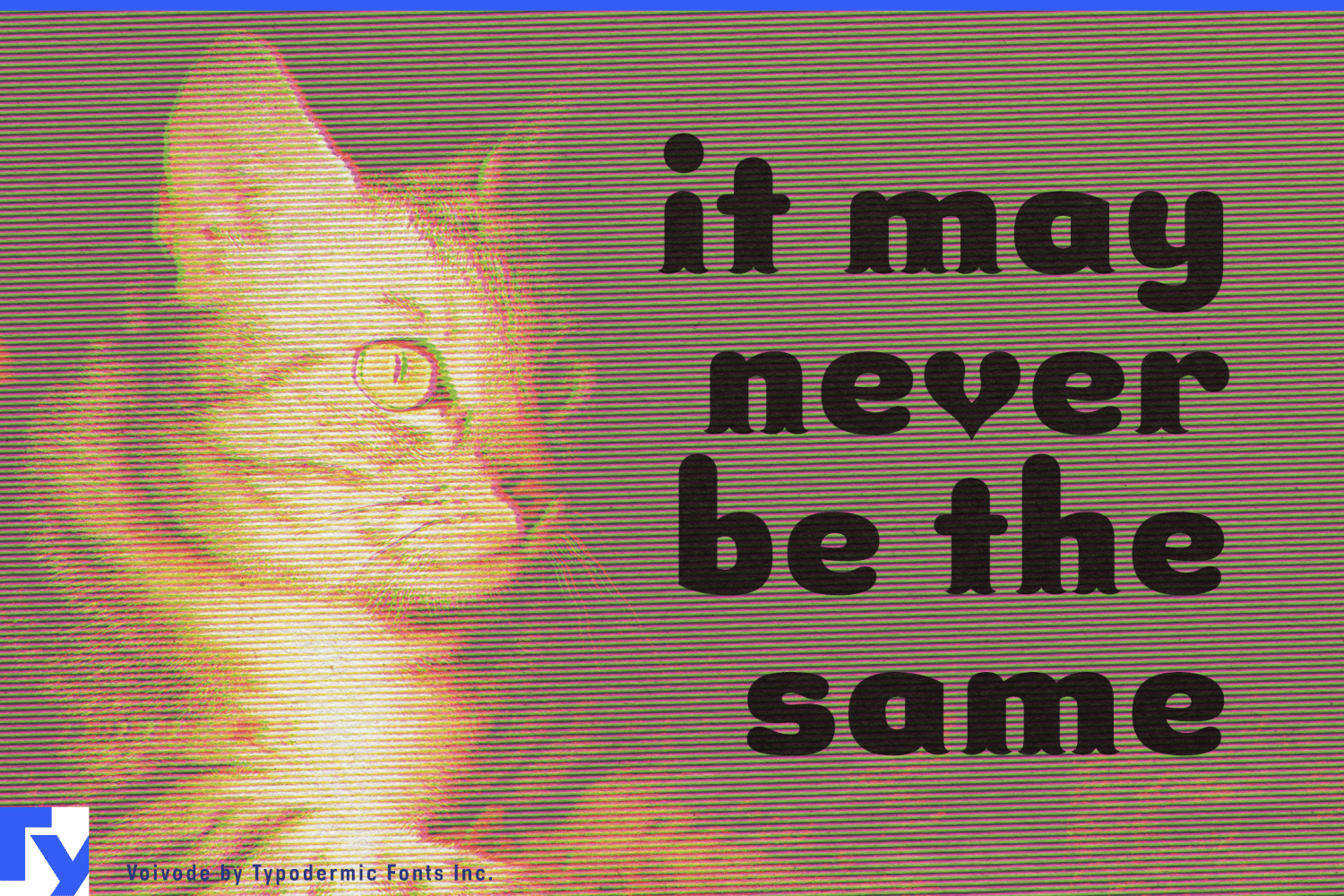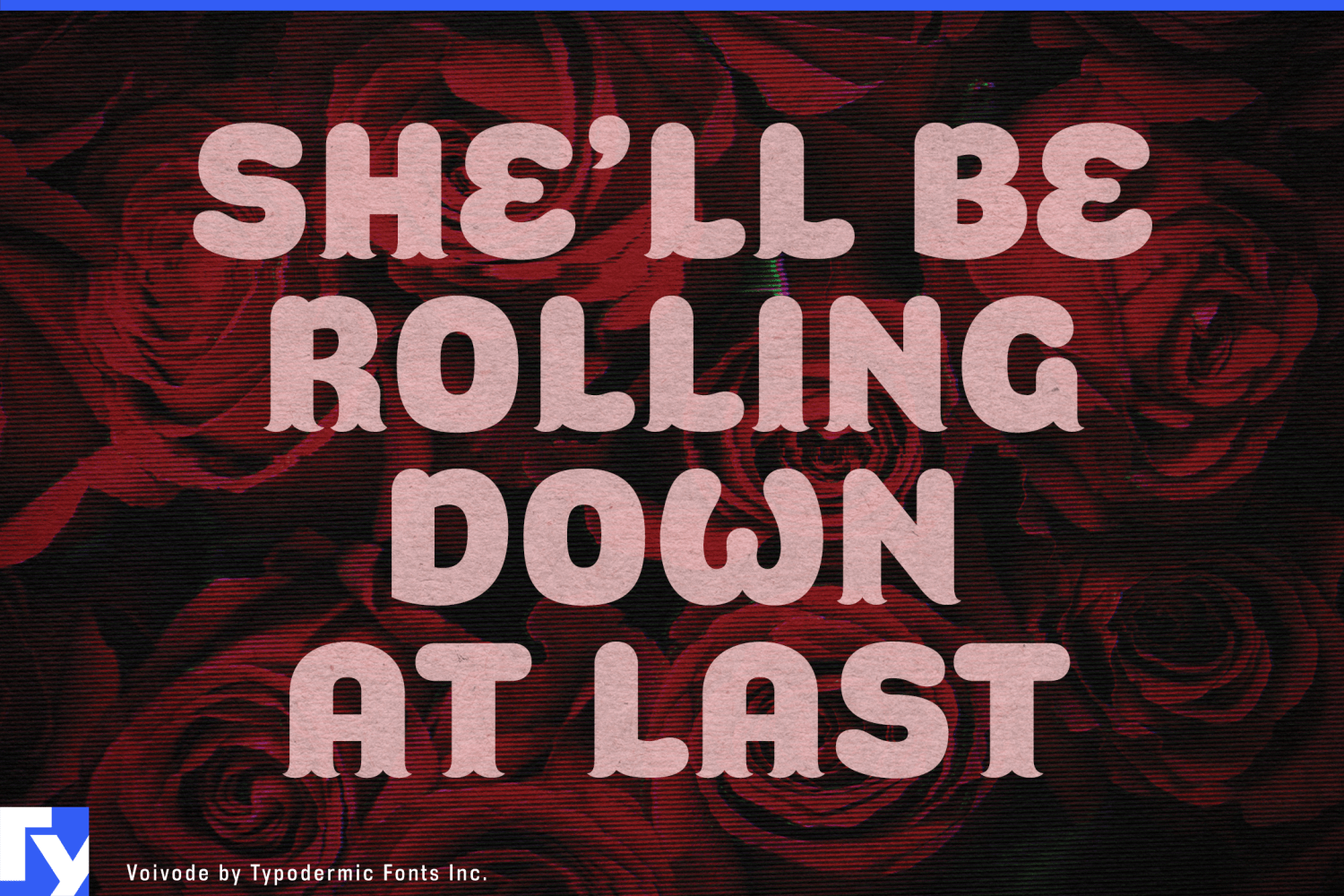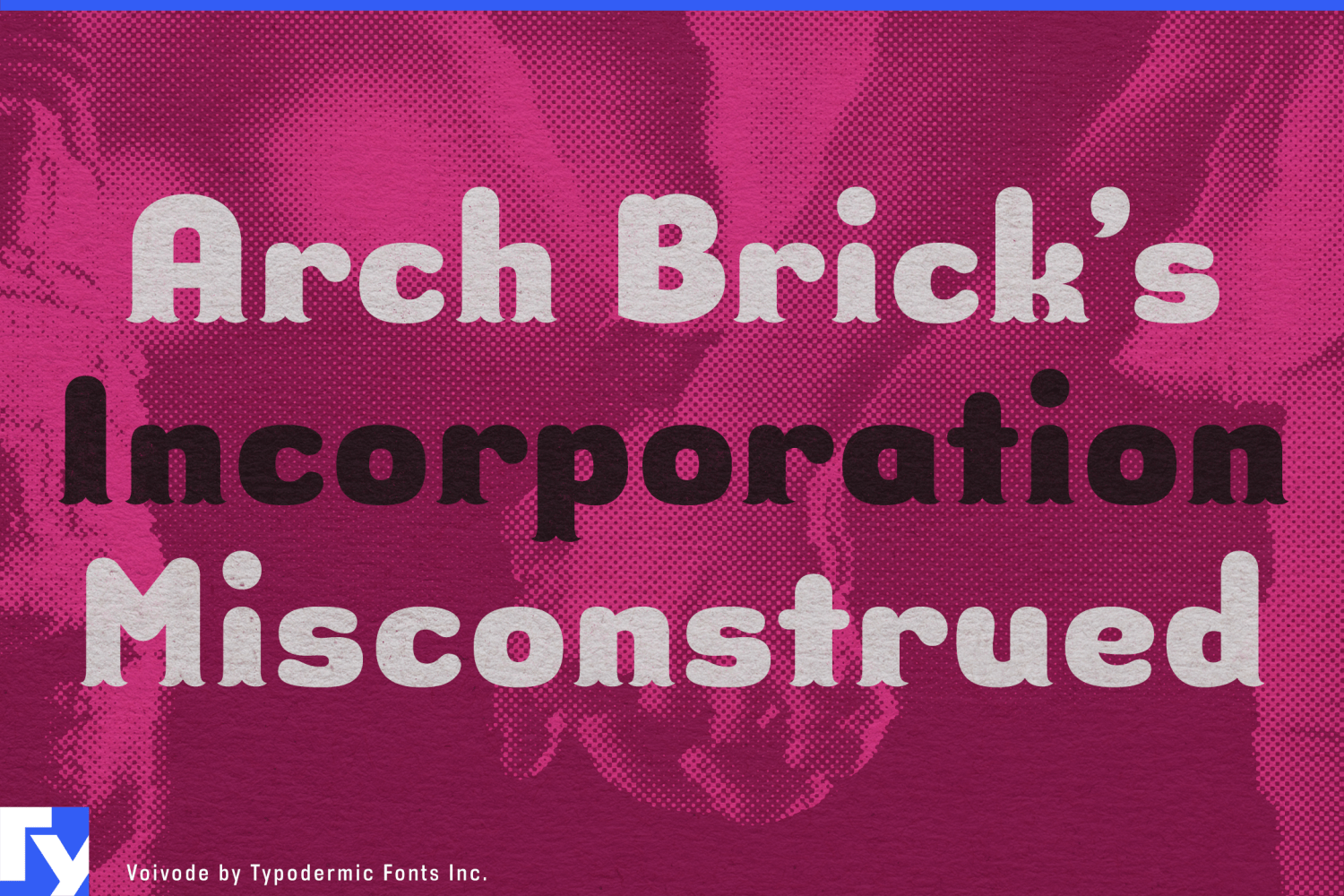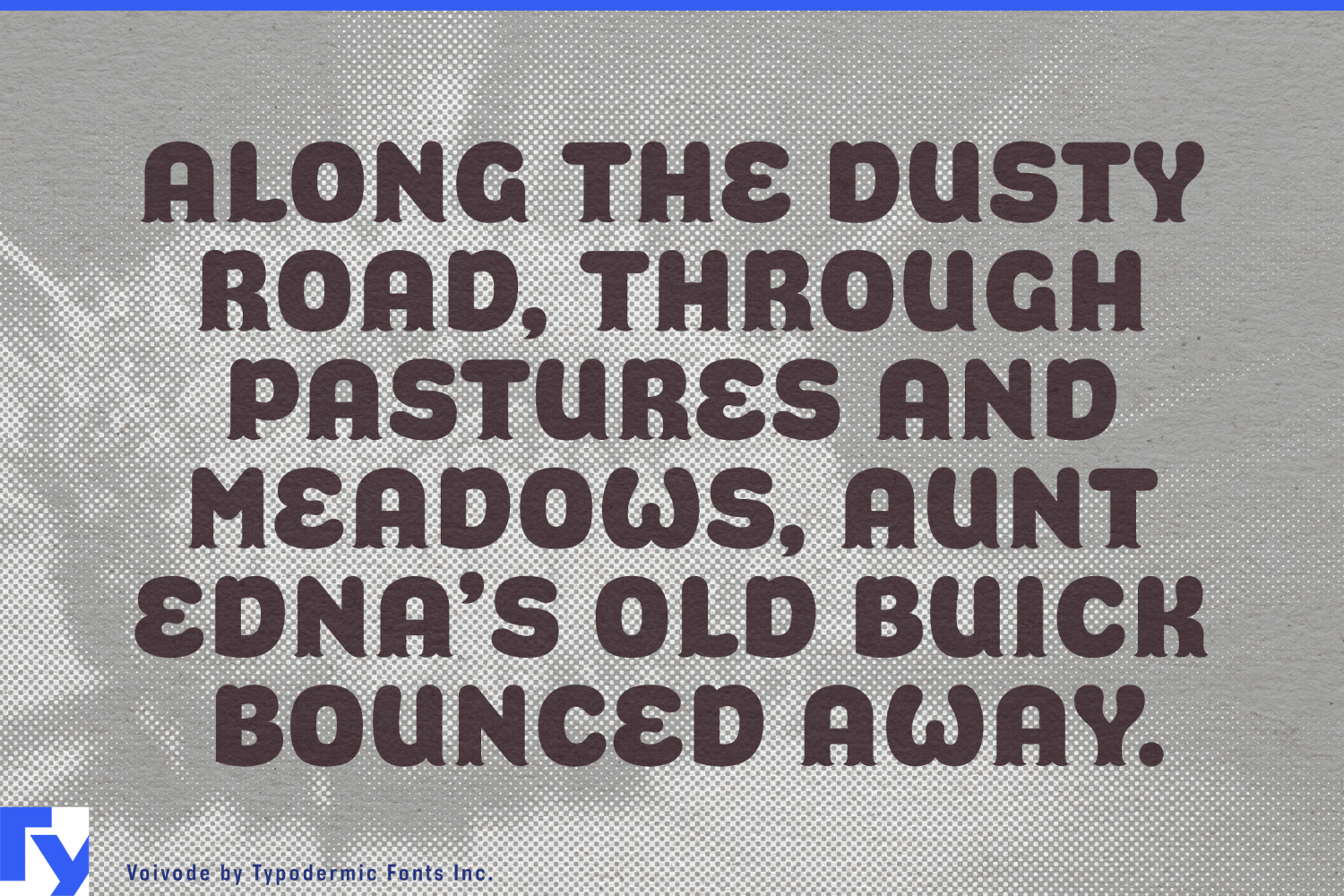
About Voivode
Fall head over heels for Voivode, the typeface that will sweep you off your feet and into a world of typographic romance. This is a love letter to the art of design, with each character crafted to make hearts skip a beat and imaginations soar. Voivode’s…